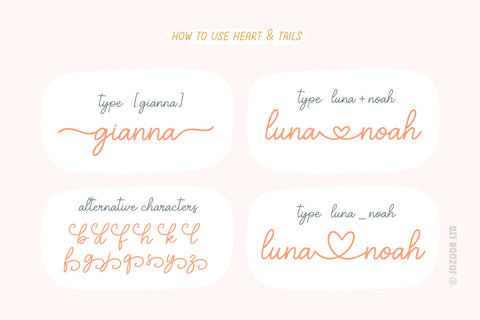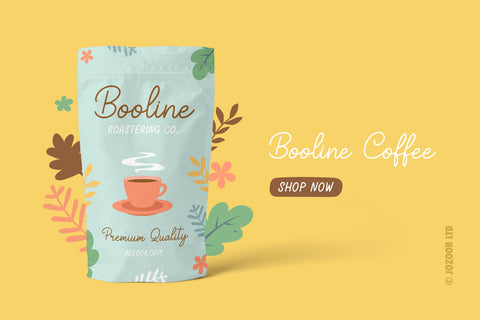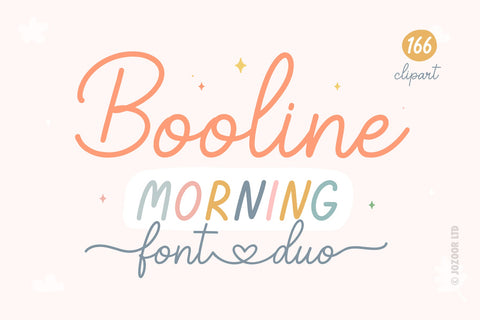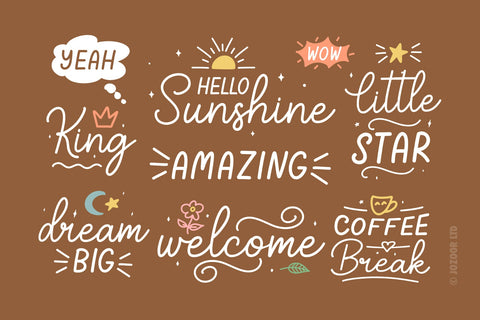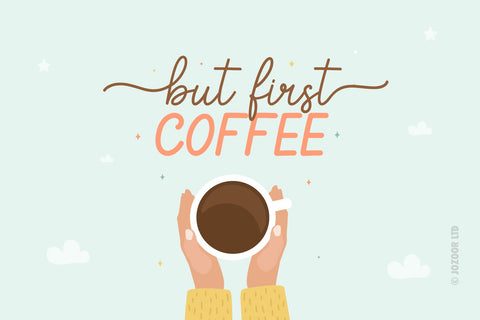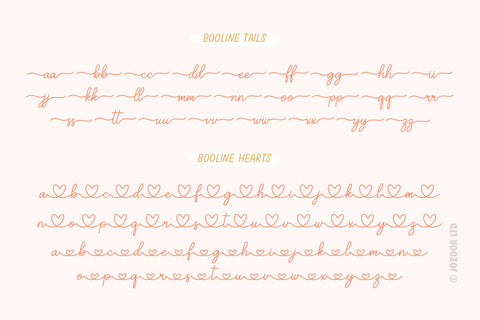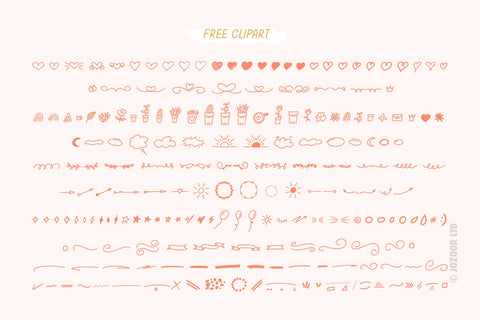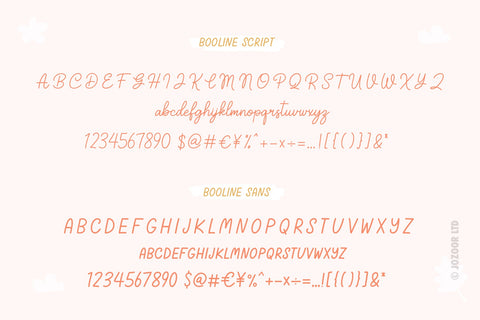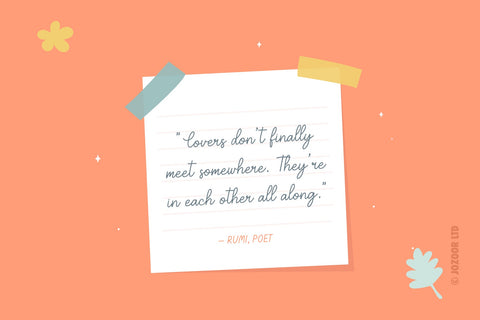
Booline Morning - Monoline Font Duo
Booline Morning is a lovely heart monoline script font duo for wedding invitations, save the date cards, fine art papery, feminine branding, personal gift cards other romantic projects. Come with free clipart and quotes.
Font Features:
• Beginning swashes (tails).
• Ending swashes (tails).
• Connecting hearts.